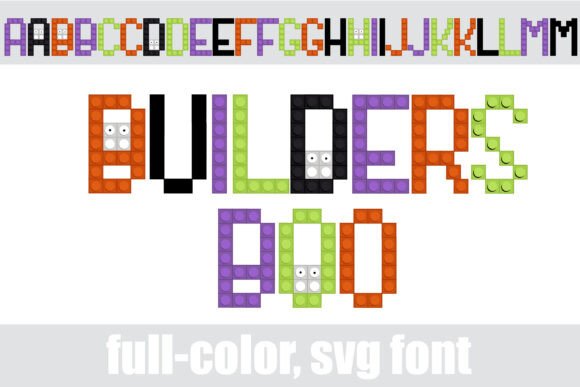
The Spooky-ooky World of Builders Boo Font
Ah, the thrill of the hunt for the perfect font! I recall a particularly frustrating design session where I was tasked with creating a Halloween-themed poster, but my font options were as dull as a butter knife. That was until I stumbled upon the Builders Boo Font! This full-color font is a game-changer, featuring building blocks in a spooky Halloween color palette with tiny ghosts peeking out. In this article, I’ll share my experience with this fantastic font, its capabilities, and how to make the most of it in your designs.
My Love Affair with Builders Boo Font
Here’s what I love about Builders Boo Font:
- ✨ Unique and playful design: The building blocks and ghosts create a fun, whimsical feel perfect for Halloween-themed projects.
- 🎃 Versatile: Works beautifully for titles, displays, posters, and more, making it an excellent addition to your font library.
A Few Quirks to Keep in Mind
While Builders Boo Font is an amazing addition to any design project, there are a few things to consider:
The Story Behind Builders Boo Font
Legend has it that Builders Boo Font was created by a team of designers who wanted to bring a touch of whimsy and spookiness to the world of typography. Inspired by childhood memories of building with blocks and trick-or-treating, they crafted a font that’s both fun and eerie. The result is a unique and captivating font that’s perfect for Halloween-themed projects and beyond.